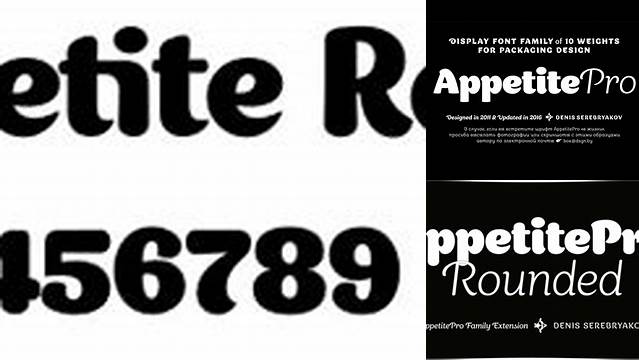
Understanding the Appetite Pro Rounded Font Family
Hey design enthusiasts! Let's dive into the awesome world of the Appetite Pro Rounded font. This typeface isn't just another font; it's a whole mood! We're talking about a collection designed with versatility and a friendly vibe in mind. The 'Rounded' in its name isn't just for show; it signifies those delightfully soft, smooth edges that give it a welcoming and approachable feel. This makes it perfect for a wide range of projects where you want to convey warmth, playfulness, or just a generally good-natured aesthetic. Think about branding for cafes, kids' products, event invitations, or even website headers that aim for a cozy user experience. The Appetite Pro Rounded family often comes with multiple weights, from light and airy to bold and impactful, allowing designers to create a cohesive visual hierarchy within their designs. This means you can use one font family and still achieve significant contrast and emphasis, which is super handy. When you're looking for a font that can adapt to different tones and applications, the Appetite Pro Rounded is a solid contender. Its design principles prioritize readability without sacrificing personality. So, whether you're a seasoned pro or just starting out, understanding the core characteristics of this font family is key to unlocking its full potential in your creative endeavors. We'll be exploring how to get your hands on this gem and how to best utilize its unique features to make your designs pop!
Why Choose Appetite Pro Rounded for Your Projects?
So, you're probably wondering, 'Why should I specifically pick the Appetite Pro Rounded font?' Well, guys, it boils down to its incredible blend of style and practicality. In the design world, finding a font that looks fantastic and works well across various media can be a real game-changer. The Appetite Pro Rounded excels here. Its rounded terminals give it a softer, more contemporary feel compared to its sharp-edged counterparts. This roundedness inherently makes it feel more friendly, accessible, and less formal, which is a huge plus for many modern design briefs. Imagine you're working on a website for a new bakery – you want something that feels inviting and delicious, right? Appetite Pro Rounded nails that. Or perhaps you're designing a poster for a local music festival that aims for a laid-back, community vibe. Again, this font fits the bill perfectly. Beyond aesthetics, its readability is top-notch. Even in smaller sizes or when used for longer blocks of text, the clear letterforms ensure your message comes across loud and clear. This is crucial for user interfaces, app designs, and any digital content where legibility is paramount. Furthermore, its versatility across different weights means you can achieve a sophisticated typographic system using just this one family. Need a headline to shout? Grab the Black weight. Need body copy to whisper? The Light or Regular will do the trick. This consistency and range save you time and ensure a harmonious look and feel for your entire project. It's the kind of font that doesn't just fill space; it actively contributes to the overall message and emotional tone of your design.
Exploring the Design Nuances of Appetite Pro Rounded
Let's get a bit more granular and talk about the nitty-gritty design elements that make the Appetite Pro Rounded font so special. When we talk about 'rounded,' we're referring to how the strokes terminate. Instead of sharp, acute angles, you find soft, curved endings on many of the letterforms. This detail might seem small, but it has a significant impact on the overall perception of the typeface. It contributes to its distinctively warm and approachable character. Look closely at letters like 'a', 'c', 'e', or 's', and you'll see these subtle curves that soften the overall impression. This design choice often makes the font feel more modern and less rigid than traditional serif or sans-serif fonts. The x-height, which is the height of the lowercase letters like 'x' without ascenders or descenders, is often generous in rounded fonts like this. A larger x-height typically enhances readability, especially at smaller sizes, making it a great choice for body text and UI elements. The counter spaces – the enclosed or partially enclosed negative space within letters like 'o', 'p', or 'd' – are also often designed to be open and welcoming. This further contributes to its legibility and prevents the letters from feeling cramped or claustrophobic. The overall proportions of the letters tend to be balanced, avoiding extreme width or condensed forms, which again, supports its versatility. Whether it's used in display sizes for headlines or in smaller sizes for captions, these carefully considered design nuances ensure that Appetite Pro Rounded remains both stylistically pleasing and highly functional. It’s the kind of font that speaks volumes through its subtle, yet impactful, design decisions.
Using Appetite Pro Rounded in Digital Design Projects
Alright, now that you've got Appetite Pro Rounded downloaded and installed, let's talk about making it shine in your digital design projects. This font is a real workhorse, and its rounded nature lends itself beautifully to a variety of digital applications. For website design, think about using its bolder weights for headlines and subheadings to grab attention. The friendly curves make it feel welcoming and accessible, perfect for sites aiming for a positive user experience. For body text, a lighter or regular weight ensures excellent readability on screens, which is super important, guys. Its clean, modern aesthetic also makes it a great choice for UI/UX design in mobile apps and software. Imagine navigation menus, buttons, or informational text – Appetite Pro Rounded can add a touch of personality without being distracting. In social media graphics, this font is a winner. Use it for quotes, event announcements, or promotional banners. The rounded style often translates well to visually appealing, shareable content that stands out in busy feeds. For presentations, whether it's PowerPoint or Google Slides, using Appetite Pro Rounded for titles and key points can make your slides more engaging and less intimidating. Its clarity ensures your audience can easily digest the information. Remember to leverage the different weights within the family to create visual hierarchy. A bold headline paired with a lighter body text using the same font family creates a cohesive and professional look. Experiment with letter spacing (kerning) and line spacing (leading) to fine-tune its appearance, especially for larger display uses. The goal is to make your designs not just look good, but also communicate effectively and evoke the right emotion, and Appetite Pro Rounded is definitely a tool that can help you achieve that.
Leveraging Appetite Pro Rounded for Branding and Logos
When it comes to branding, guys, you want a typeface that tells a story and leaves a lasting impression. The Appetite Pro Rounded font is exceptionally well-suited for this crucial task. Its inherent friendliness and modern appeal make it a fantastic choice for businesses that want to project an image of approachability, innovation, or a casual, welcoming vibe. Think about creating a logo for a startup in the wellness industry, a new coffee shop, or a children's clothing line. The rounded edges of Appetite Pro Rounded can instantly communicate warmth and safety, which are often key attributes for these sectors. Its clean lines also ensure that the logo remains legible even at very small sizes, like on app icons or business cards. Beyond just the logo mark, consider using Appetite Pro Rounded for your brand's typography system. This means using it consistently across all your marketing materials – your website, social media posts, brochures, packaging, and more. The different weights available within the family allow you to establish a clear visual hierarchy. For instance, use a bold weight for your brand name or tagline in headers, and a lighter weight for body copy. This consistency builds brand recognition and reinforces your brand's personality. Because it's not overly quirky or niche, Appetite Pro Rounded often avoids feeling dated quickly, giving your brand a longer shelf life. It strikes a beautiful balance between being distinctive enough to be memorable and versatile enough to be widely applicable. When used thoughtfully, this font can become a powerful asset in shaping how customers perceive and connect with your brand, making it feel more human and relatable.
Best Practices for Typography with Appetite Pro Rounded
Now that you've got Appetite Pro Rounded, let's chat about how to use it like a pro! Good typography is all about making your message clear, engaging, and aesthetically pleasing. With Appetite Pro Rounded, its rounded nature gives you a great starting point for a friendly vibe. Hierarchy is key, guys. Use the different font weights – like Light, Regular, Medium, Semibold, Bold, Black – to guide your reader's eye. Make your headlines significantly larger and bolder than your body text. Subheadings should fall somewhere in between. This visual structure helps people scan and understand your content quickly. Readability is paramount, especially for longer texts. While Appetite Pro Rounded is generally legible, avoid using the very lightest or very boldest weights for extensive body copy. The Regular or Medium weights are usually your safest bet for paragraphs. Ensure adequate line spacing (leading). Typically, setting the leading to about 1.2 to 1.5 times the font size works well, but experiment to see what looks best for Appetite Pro Rounded. This prevents the lines from feeling cramped and improves reading flow. Letter spacing (kerning) is also important, particularly for headlines and logos. Pay attention to awkward gaps between certain letter pairs (like 'AV' or 'WA'). Most design software has tools to adjust kerning manually or automatically. Finally, don't overdo it. While Appetite Pro Rounded is versatile, using too many different weights or sizes in a single design can look messy. Stick to a consistent typographic system, usually involving no more than two or three variations from the family for any given piece. By following these best practices, you'll ensure that your designs using Appetite Pro Rounded are not only beautiful but also highly effective in communicating your message.
Appetite Pro Rounded vs. Other Rounded Fonts: A Comparison
Let's pit Appetite Pro Rounded against some of its rounded-font pals. While many rounded fonts share that characteristic softness, each has its own personality and intended use. Think of Nunito – it’s often seen as a bit more geometric and uniform in its roundness, making it super clean and readable, perhaps a tad less quirky than Appetite Pro can sometimes feel. Appetite Pro Rounded, on the other hand, might have slightly more character in its letterforms, offering a bit more warmth and a distinct, friendly vibe that can be great for specific branding. Then there's Quicksand. This one leans heavily into geometric shapes, with very circular 'o's and 'p's. It’s playful and modern, excellent for display text, but sometimes can feel a little too round for longer body copy, potentially impacting readability slightly compared to Appetite Pro's balanced approach. Poppins, while geometric, often feels a bit more neutral and sophisticated than a purely